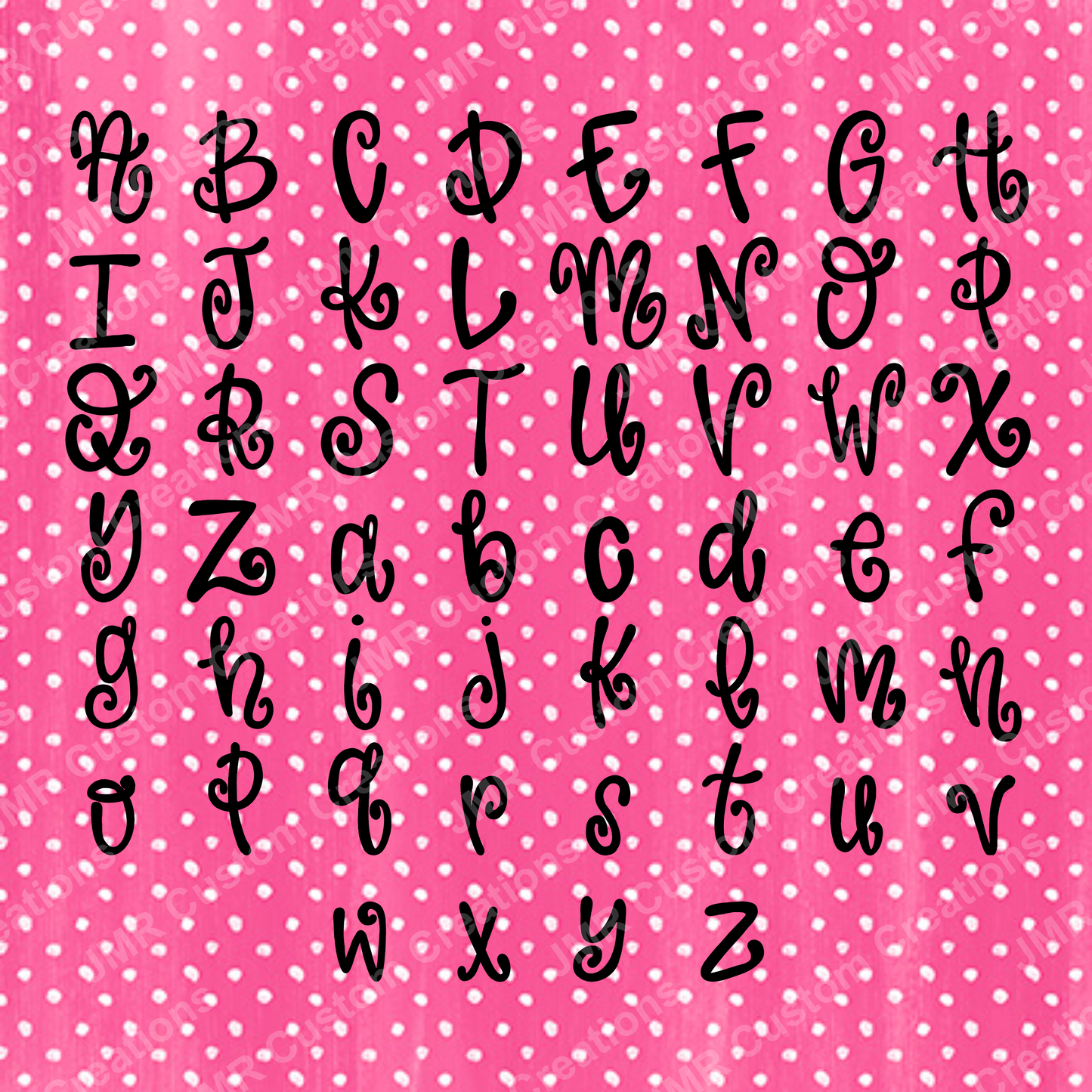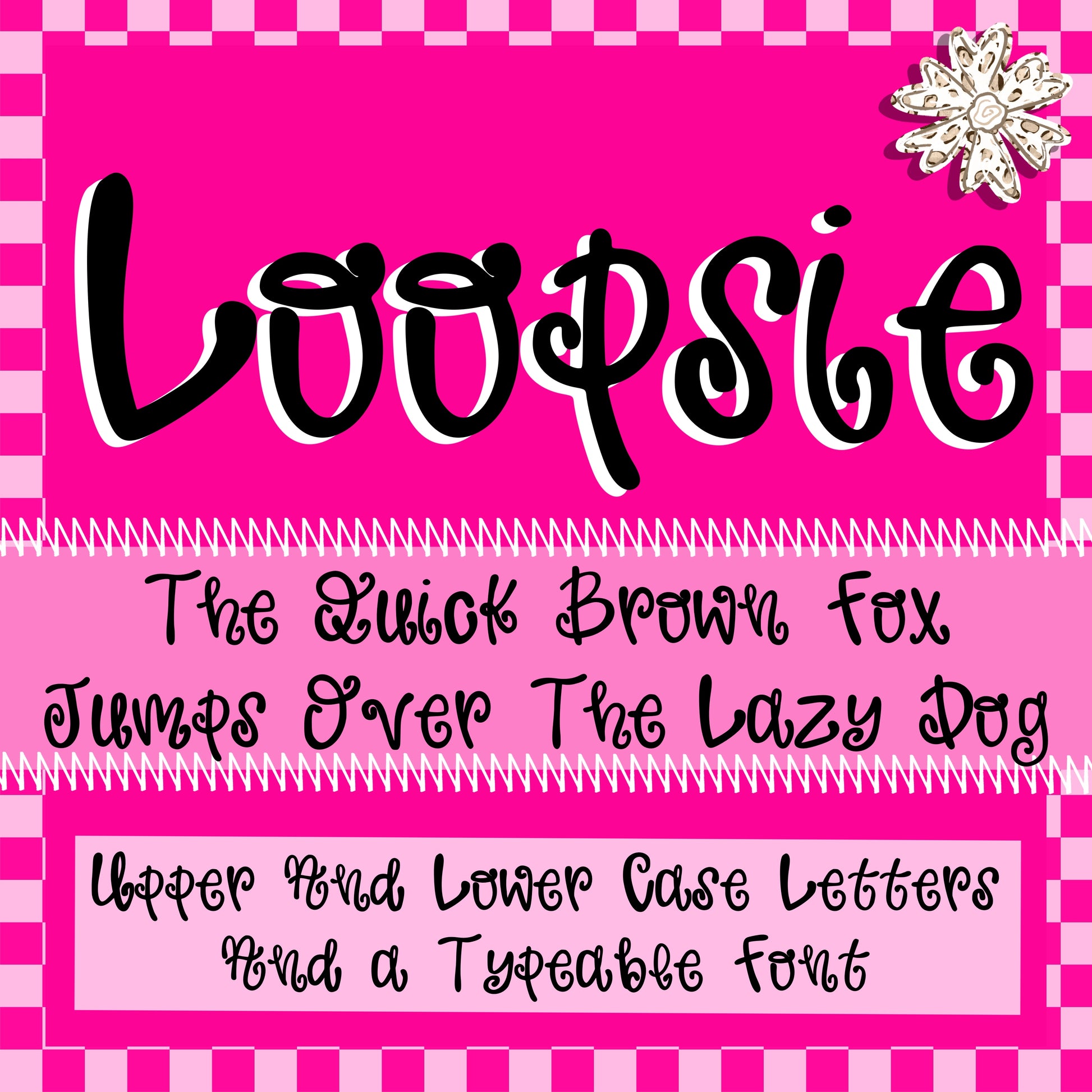
Loopsie-a hand-drawn loopy alpha set with PNG and Typeable Font!
This is a new alpha that was hand-drawn by me! It is sooooo cute! It can be used for soooo many things! This comes with Upper and Lowercse PNG’s AND a Typeable font!
***As with most cursive or loopy alphas, some of the letters may need some adjusting in their tracking and positioning. If you do not know how to do this, I recommend using the drag and drop PNGs and adjusting them individually.***